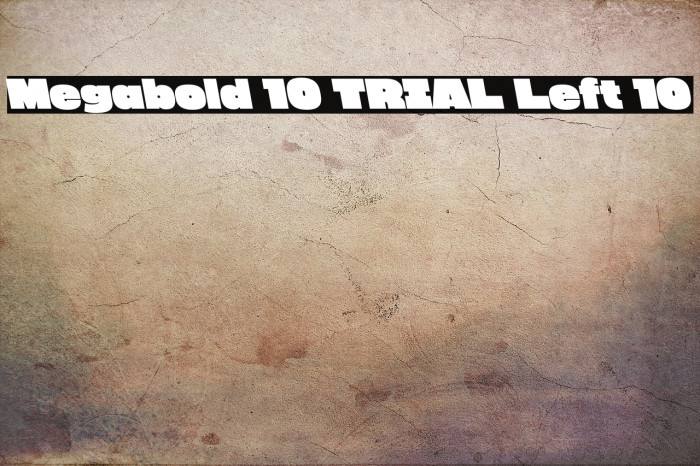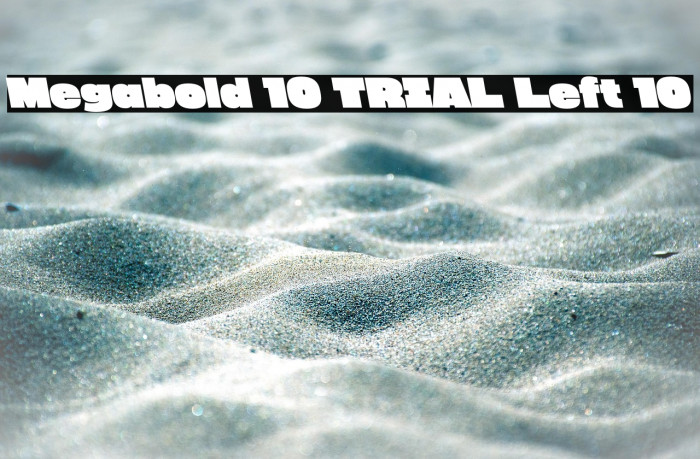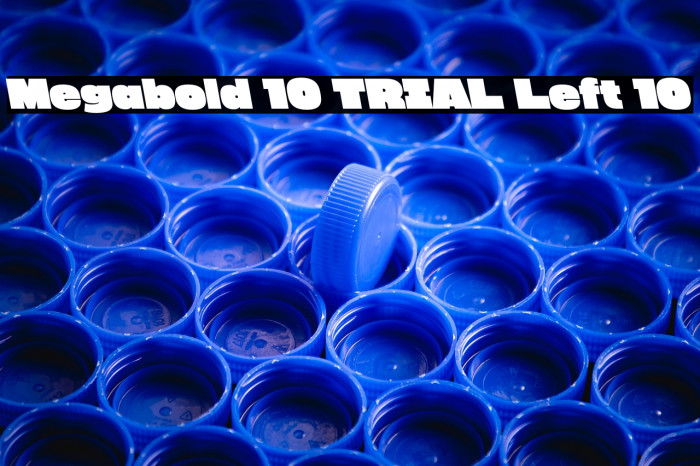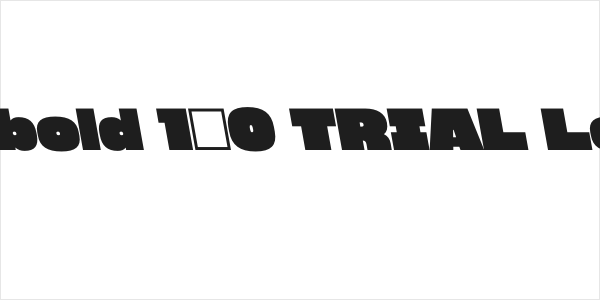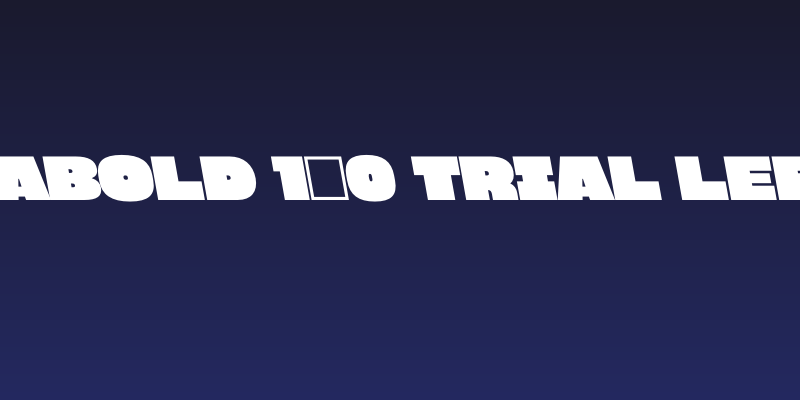
Megabold 1.0 TRIAL Left 10 Font
Megabold 1.0 TRIAL Left 10 Description
This font features a bold and impactful design with thick, block-like characters that exude strength and confidence. The uppercase and lowercase letters maintain a consistent weight, creating a uniform appearance across the alphabet. The numbers are equally robust, ensuring readability and emphasis. The special characters are designed to match the boldness of the letters and numbers, making them suitable for attention-grabbing designs. The overall style is modern and assertive, ideal for projects that require a strong visual presence.
| Proposed Projects | Ideal for headlines, posters, logos, and branding materials that require a strong and bold visual impact. |